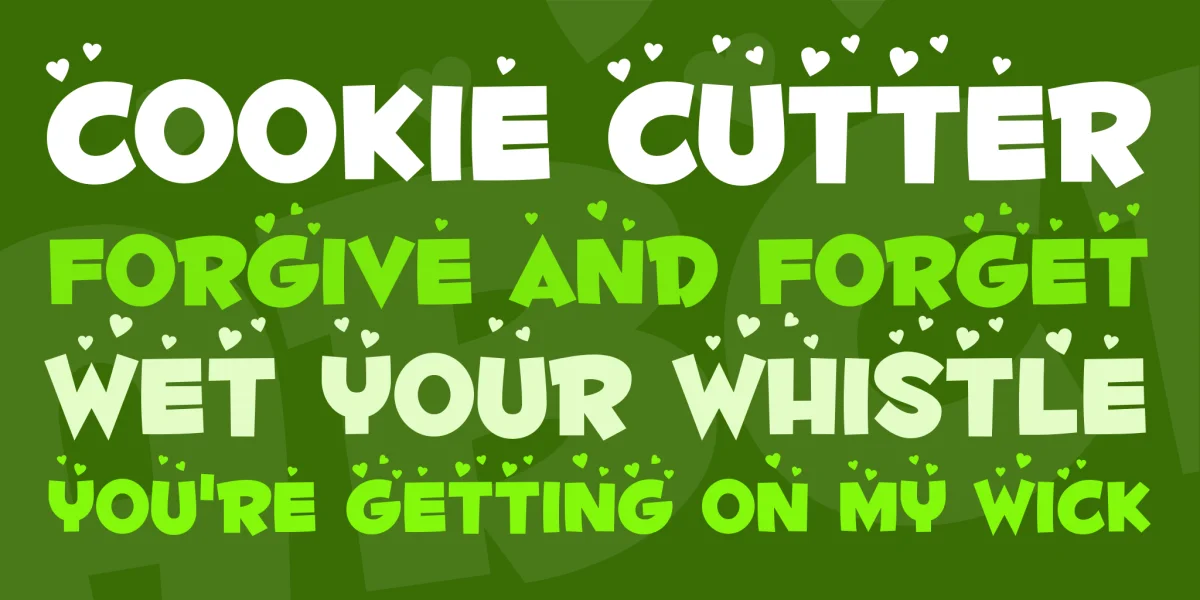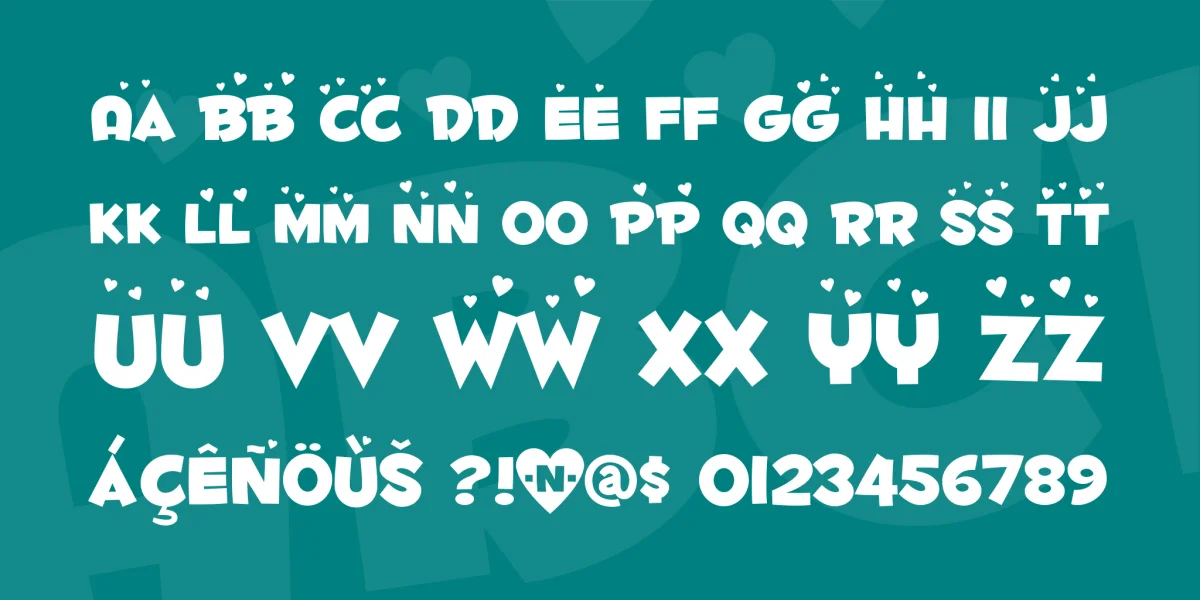
The next time somebody catches you blushing, they just may see tiny animated floating hearts over your head! It’s just Luvable! Commercial license is available at MyFonts.